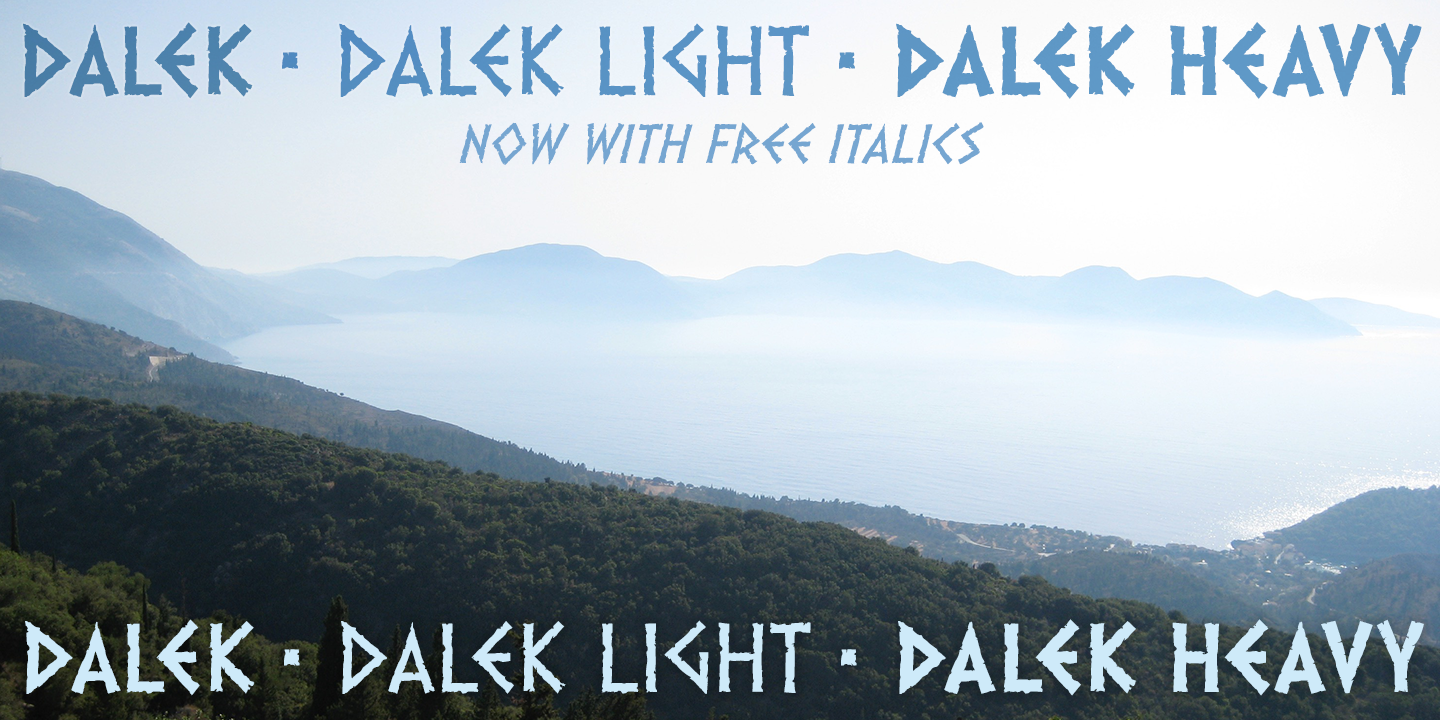
Dalek Font Free Download is a bold, futuristic typeface inspired by sci-fi aesthetics and geometric forms, making it perfect for posters, video game titles, logos, fan art, and themed branding projects. Its sharp edges and unique character design evoke a high-tech, mechanical vibe that stands out in both print and digital applications. Dalek Font is an excellent choice for designs needing a strong, modern, and sci-fi-inspired look.
With Dalek Font Free Download, you’ll receive a complete set of uppercase letters, numbers, and essential punctuation, providing versatility for various creative uses. Whether you’re designing promotional materials, merchandise, or event graphics, this font offers impact and readability while giving your work a futuristic flair.